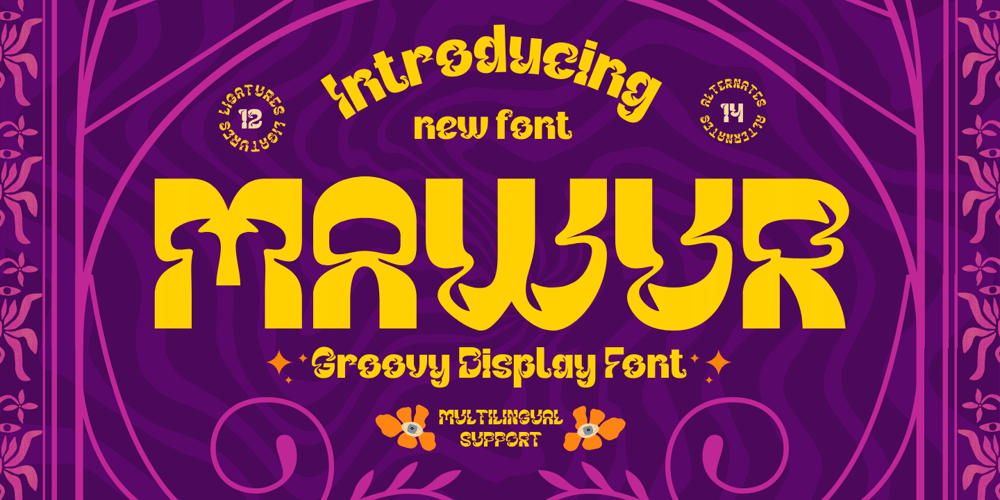
Mawur Font Family was designed by Rozikan and published by Twinletter. Mawur contains 1 styles and family package options. Introducing the Groovy font called Mawur. This font is the perfect way to add style and flair to your designs! The unique, sophisticated shapes and amazing mix of shapes in this font will automatically add a touch of class and sophistication. ideal for use in greeting cards, posters, product packaging, or just to add a little flair to your designs. Its simplicity will make it easy to read and you can use it anywhere you like. Grab your copy now and start making the most of it today! What’s Included : Standard glyphs Iso Latin 1 Simple installations We highly recommend using a program that supports OpenType features and Glyphs panels like many Adobe apps and Corel Draw, so you can see and access all Glyph variations. PUA Encoded Characters – Fully accessible without additional design software. Fonts include Multilingual support